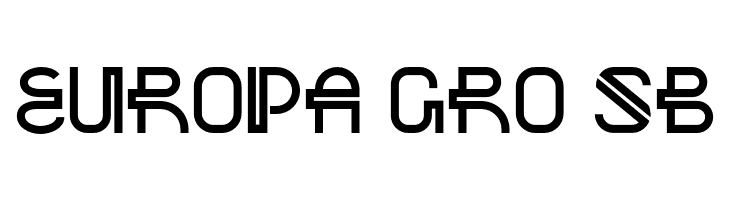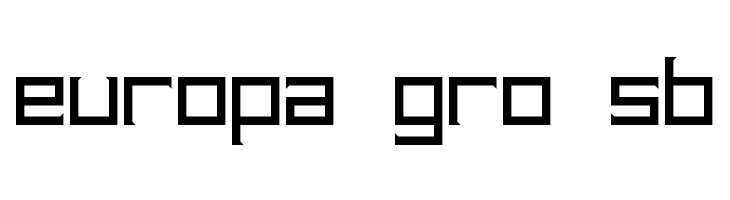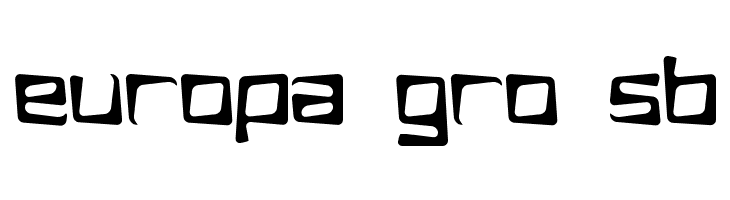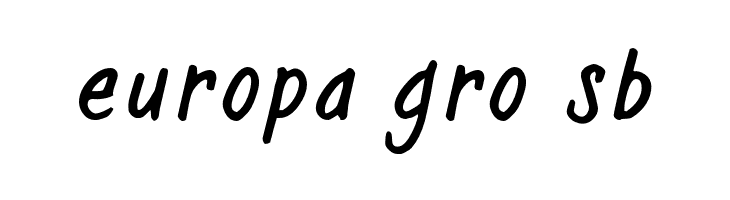
A bold, geometric font with a futuristic and modern design.
A bold, decorative font with a layered outline effect, offering a retro yet modern look.
A casual, handwritten font with smooth, flowing lines and a playful style.
A modern, bold font with geometric shapes and rounded corners, perfect for impactful designs.
A bold, dynamic font with an edgy, distorted style.
A geometric, angular font with a futuristic and modern design.